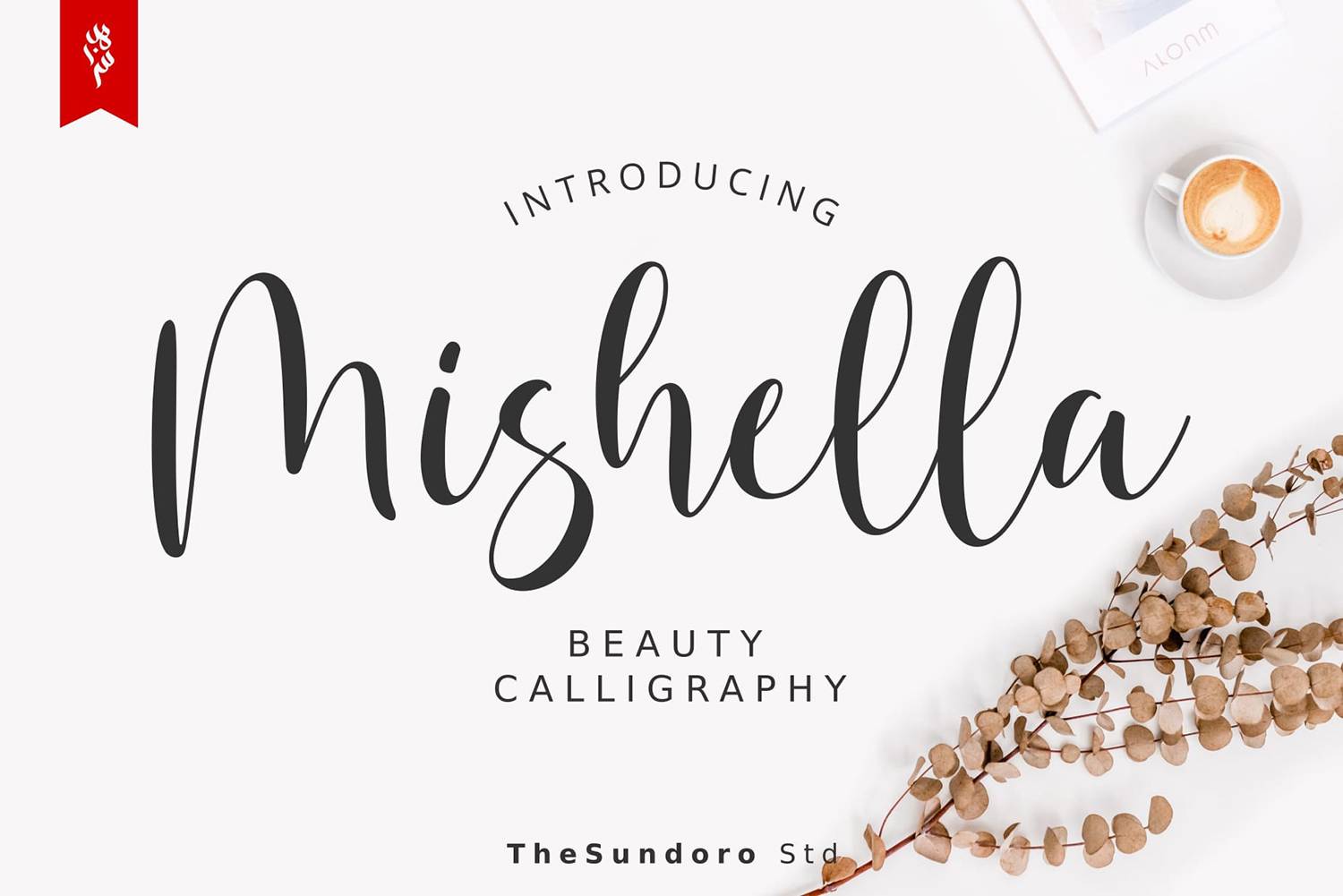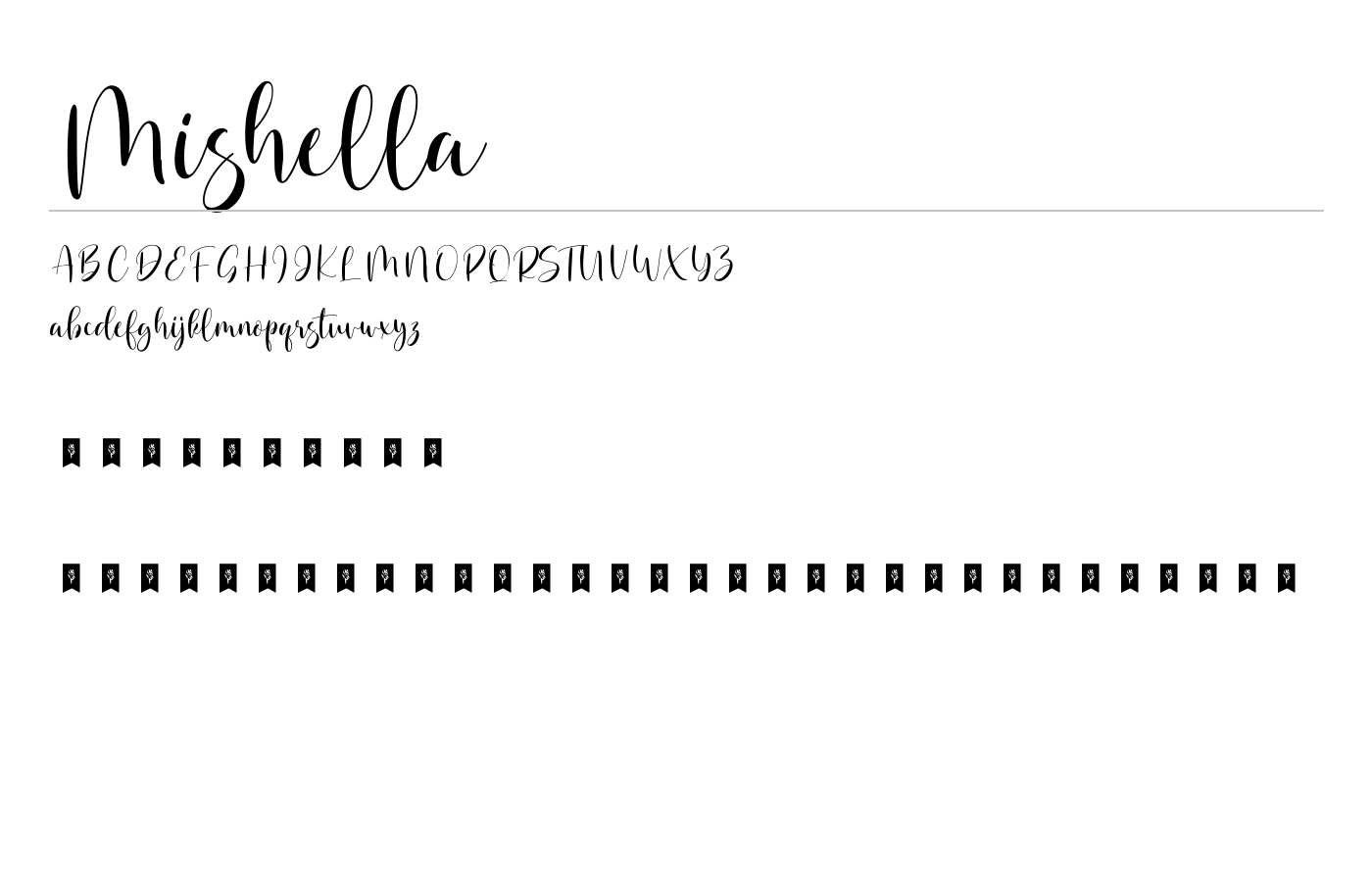
Mishella is an elegant script font with a modern, hand-lettered style that features smooth, flowing strokes and a playful yet sophisticated feel. It combines thin and thick lines with graceful curves, making it perfect for branding, invitations, and creative projects that require a personal, stylish touch. This font works beautifully in headlines and logos where a contemporary and chic appearance is desired.
Mishella Font
About Mishella Font